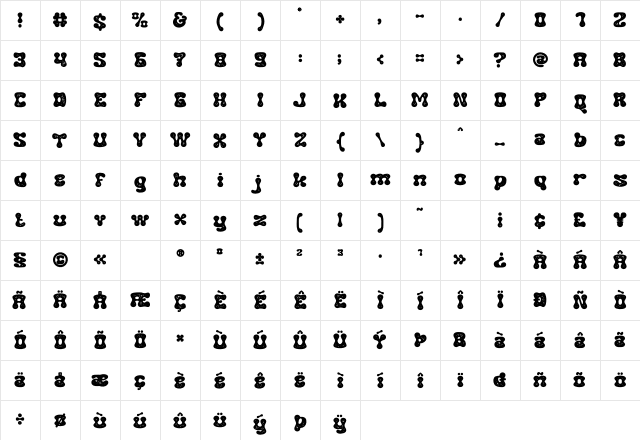
Funky Sign Texture
Style: Texture
Foundry: Putracetol Studio, Karanganyar.
Designer: Putra Novembria Candra Kusuma
Design Context for Funky Sign
Funky Sign embraces imperfection - its rough, textured character adds raw authenticity to designs that want to feel lived-in and unconventional.
Pro Tip: Use Funky Sign at larger sizes where the texture and irregularity of each letterform can be clearly seen - it loses its character at small sizes.